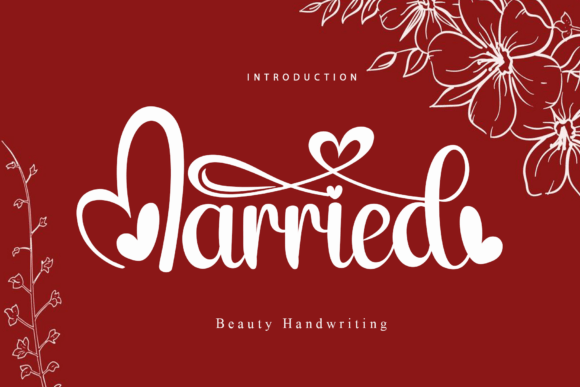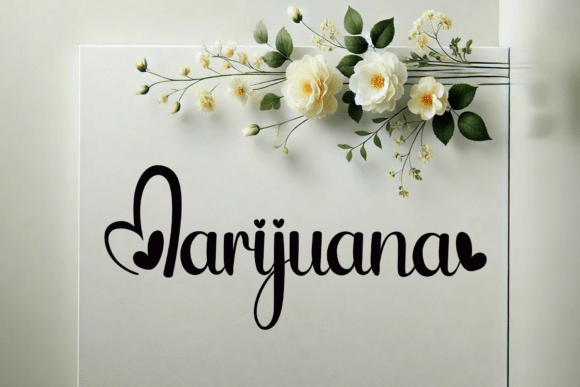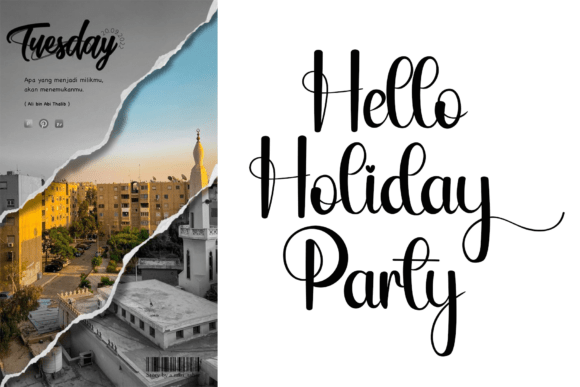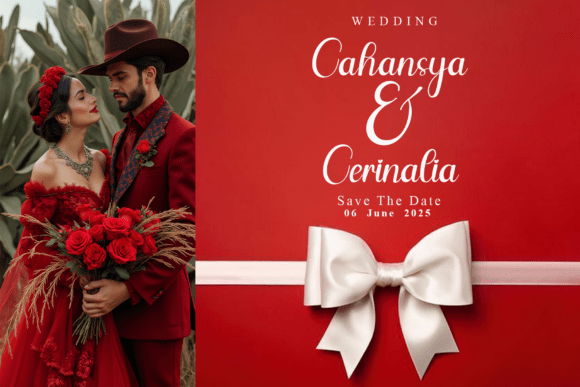
Married Font
About the Married Font
Let us introduce you to Married Font, where timeless design meets modern craftsmanship. Marriede is a lovely and timeless handwritten font. It is the best choice for creating eye catching logos, branding and quotes. Every letter has a unique and beautiful touch, which will make your design come alive!
Married is best suited for headlines, short paragraphs, and branding applications where a touch of elegant handwritten charm is desired. Its delicate yet distinct letterforms work exceptionally well in logos, short quotes, and invitations. However, its intricate details make it less suitable for body text or UI elements where readability at smaller sizes is crucial.
This font’s personality is sophisticated and romantic, lending itself well to projects related to weddings, fashion, beauty, or luxury goods. Consider pairing Married with a clean sans-serif like Lato for a modern contrast or a classic serif like Garamond for a more traditional feel. A simple geometric sans-serif would also provide a striking counterpoint to its organic forms.
For a playful yet refined look, a script font with a slightly looser, less formal style could be considered as a secondary element, used sparingly for accents or smaller text elements. Avoid pairing it with overly bold or heavily textured fonts which would clash with its delicate nature.
Married Font Usage Examples
Married Font Example